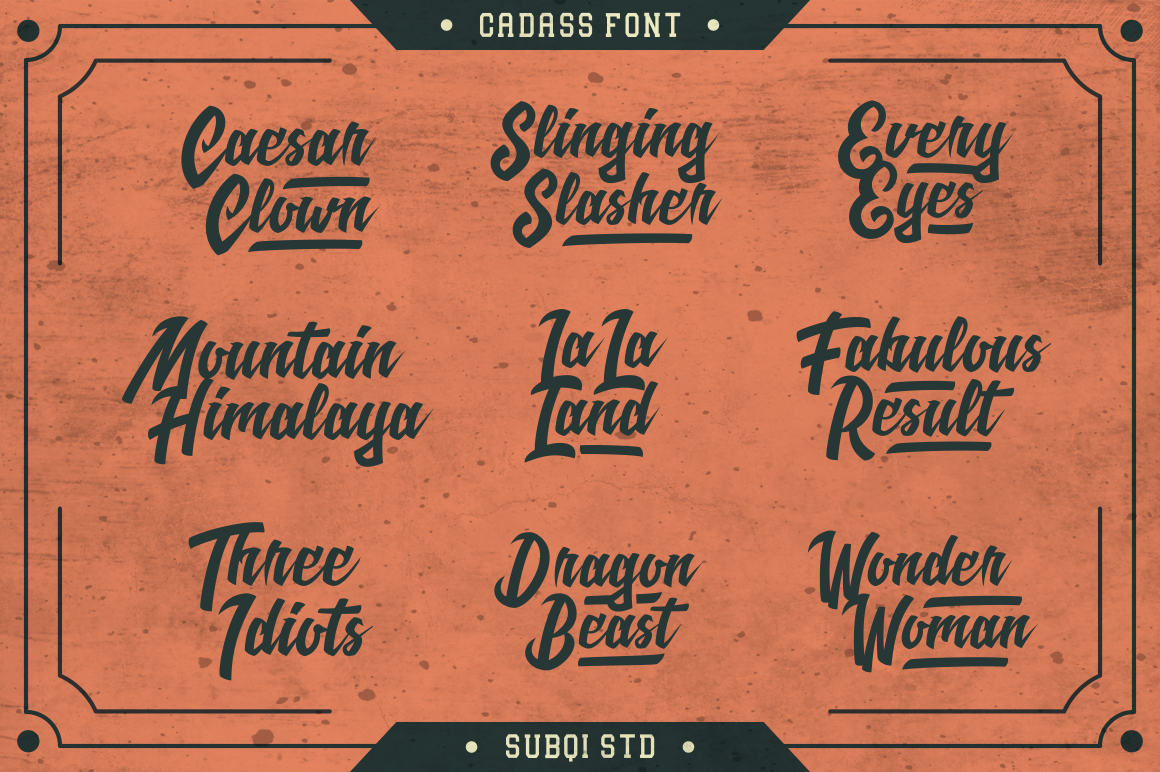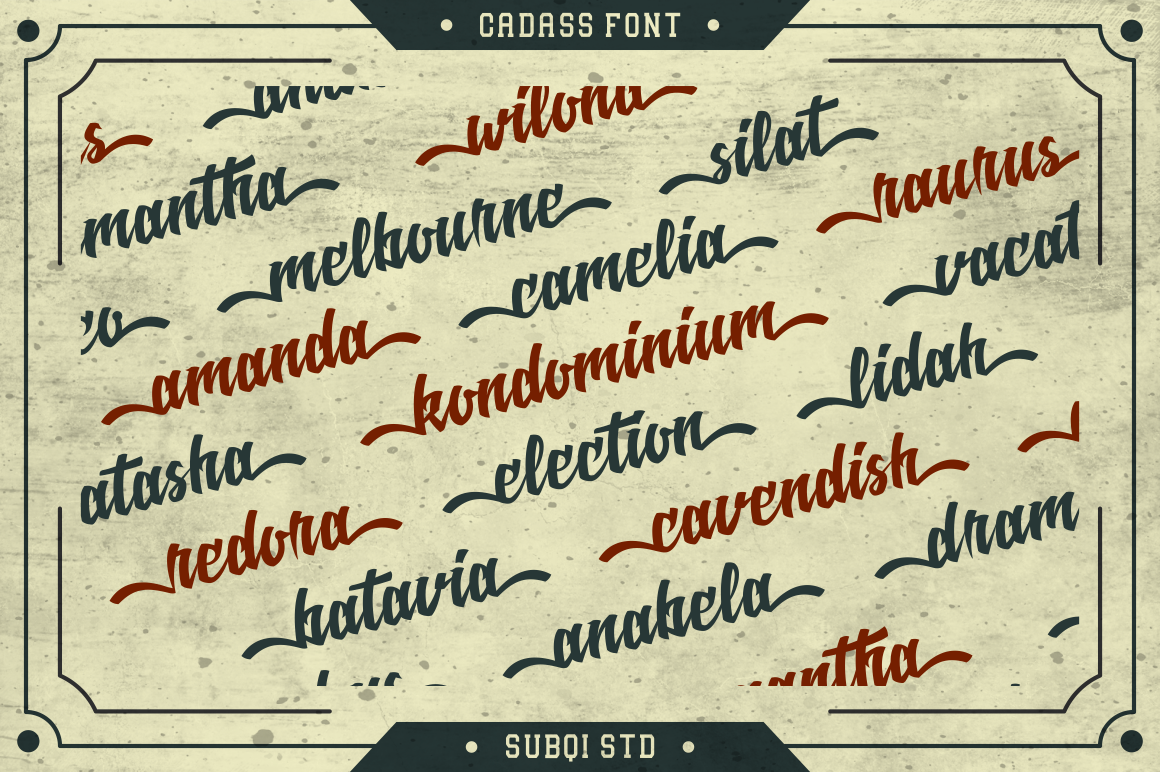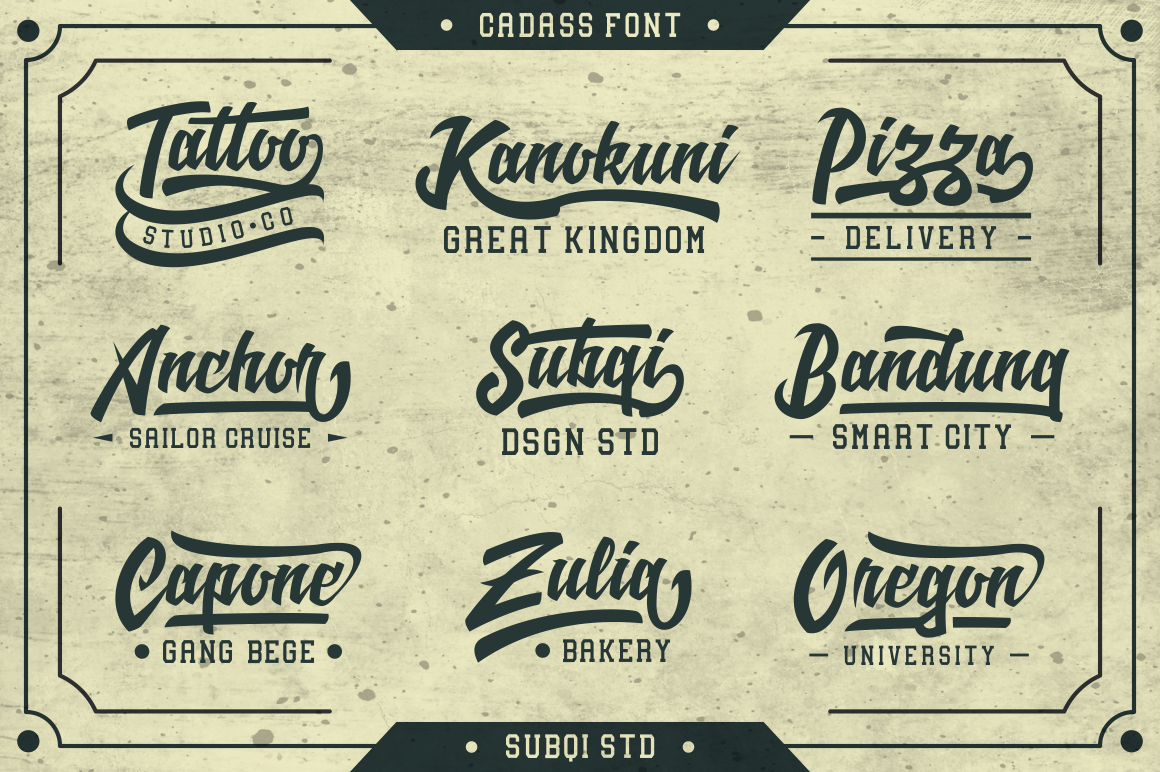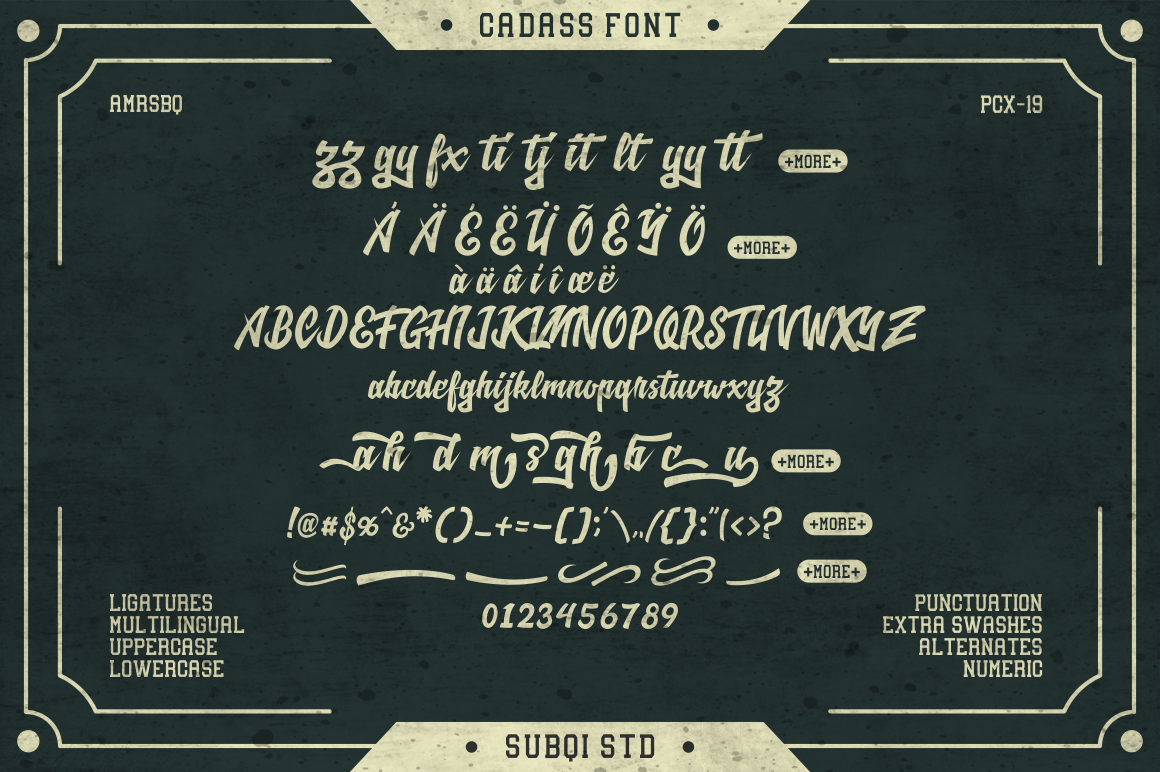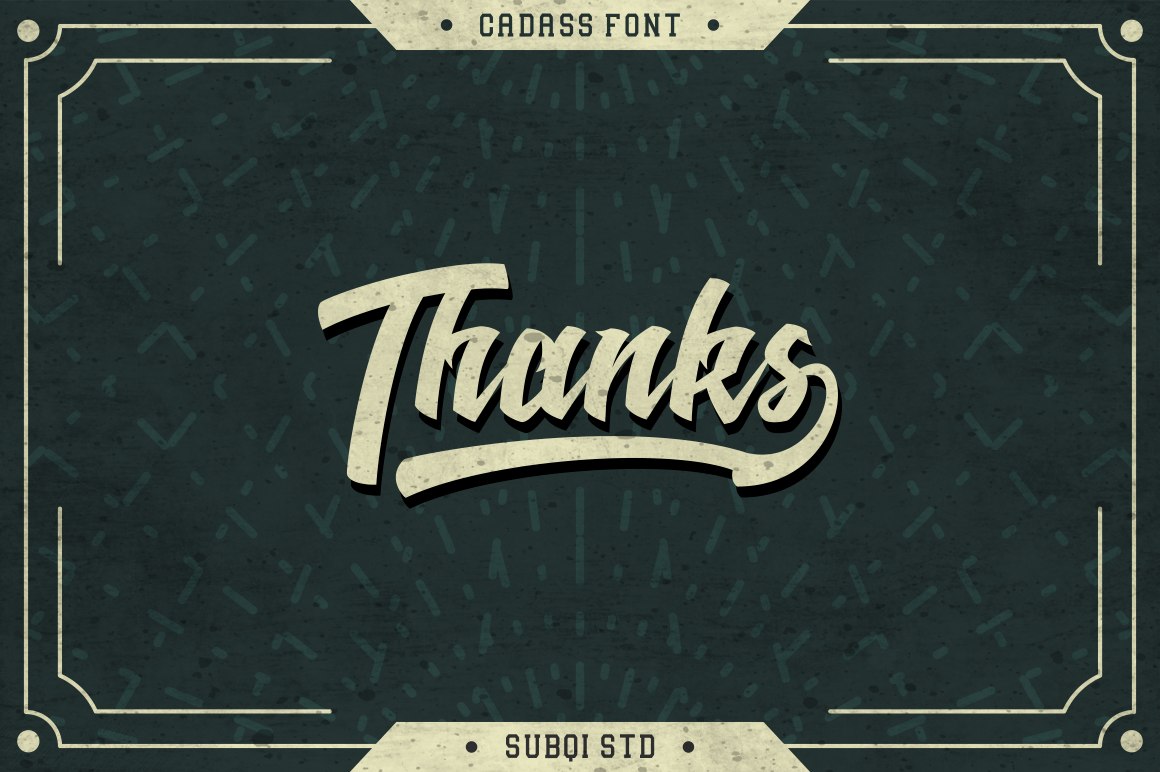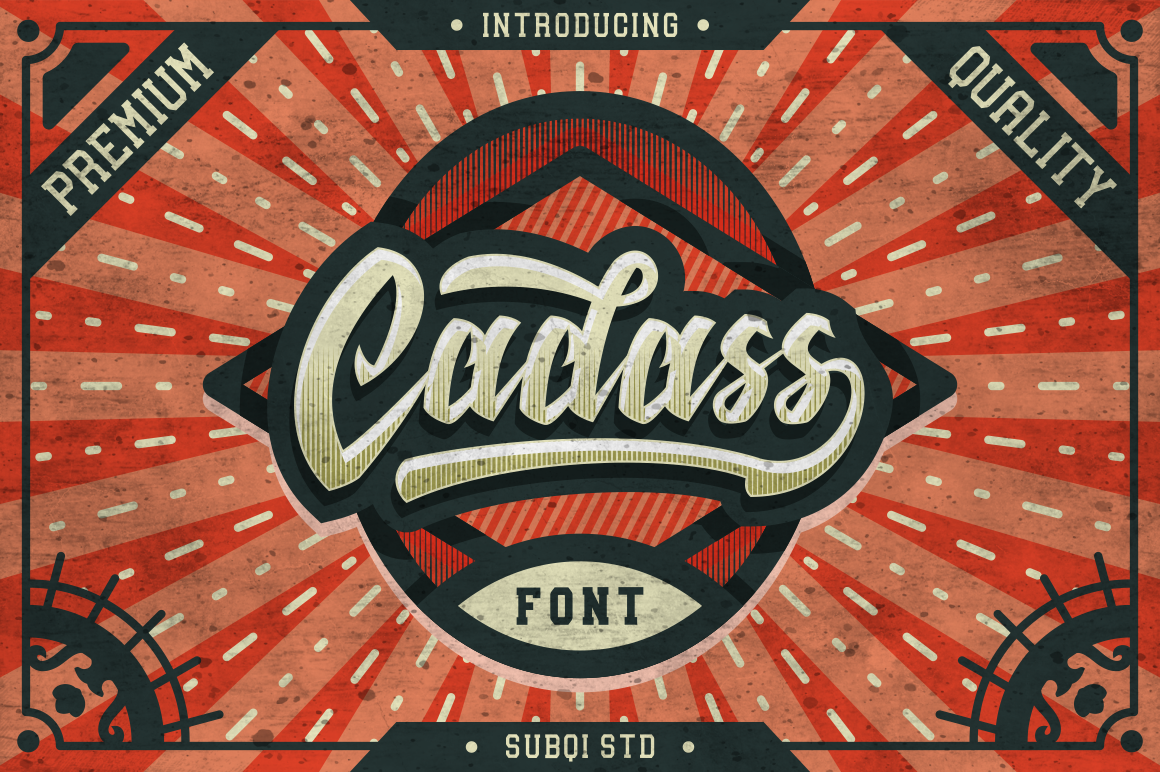
The Ultimate Design Game-Changer: Cadass Font
I’ll never forget the time I was working on a vintage-inspired branding project for a client, and I just couldn’t seem to find the perfect font. I scoured the internet, tried out countless combinations, but nothing seemed quite right. That was until I stumbled upon the stunning Cadass Font – a bold and daring Script & Sans Serif combination that’s been a total game-changer for my designs.
So, what makes Cadass Font so special? Here are a few things that I absolutely love:
- ✨ Classic vintage touch with a modern twist: Cadass Font combines the elegance of traditional script fonts with a fresh, modern spin that’s perfect for designs that need a bit of sophistication.
- ✅ Versatile and flexible: Whether you’re working on a logotype, label design, or apparel, Cadass Font adapts seamlessly to different contexts and styles.
- 💥 Impactful and attention-grabbing: The bold, daring quality of Cadass Font makes it perfect for designs that need to stand out from the crowd.
- 🤔 Limited use of certain characters: As with any font, there may be limitations on certain characters or glyphs, so be sure to test it thoroughly before committing to a project.
- ⚠️ May require adjustments for optimal spacing: Depending on the context, you may need to tweak the spacing between letters or words to get the optimal look.
While the true story behind Cadass Font remains a mystery, it’s easy to imagine that the designer was inspired by the classic typography of the past, with a passion for modernizing vintage styles. Perhaps they wanted to create a font that would add a touch of sophistication and elegance to designs, while still feeling fresh and contemporary.
| What makes Cadass Font so unique? | Cadass Font combines a bold, daring script with a clean, modern sans serif font, making it perfect for designs that need a classic vintage touch with a modern twist. |
| Is Cadass Font suitable for digital interfaces? | Absolutely! Cadass Font works beautifully in digital interfaces, from websites to social media graphics and mobile apps. |
| Can I use Cadass Font for print designs? | Yes, Cadass Font is perfect for print designs, including business cards, brochures, and posters. |